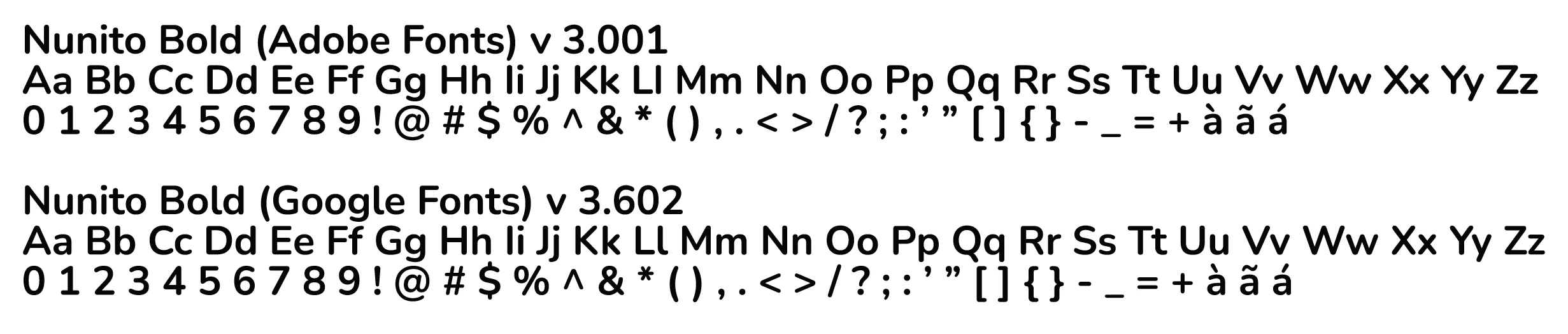
Regular Nunito font is not correct
The Regular Nunito font (not Sans) is not correct. The letter L (lowercase) does not have the serif but it should have.
Correct:
Incorrect:
I have a licensing client who uses this as one of their branded fonts and the confict between the Adobe and google versions is now costing my company hours of work to resolve, since over a hundred product photos have the incorrect font appearance and the font formatting breaks completely as soon as you try to edit it. Thanks Adobe, always great when your mistakes cost me time and money.
The issue you're describing sounds like a font variant mismatch between the Adobe version of Nunito and the one used elsewhere (like from Google Fonts). This can lead to formatting issues when switching between platforms or when editing existing designs.
Thank you, guys, for your fantastic attention to detail and reporting. I had a look as well, and it seems indeed incorrect.
I just noticed this problem too. After checking the fonts files, I found that Adobe Fonts is using an older version (v3.001) of the font available at Google Fonts (v3.602), all the letters have some differences but it is more visible on the lowercase L and T.